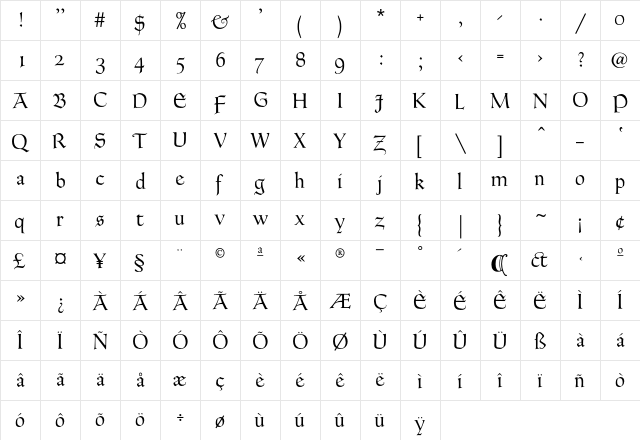
GoudyThirtyHW Regular
Design Context for GoudyThirtyHW Typeface
GoudyThirtyHW takes a measured approach to typography — its balanced proportions and neutral character make it a reliable workhorse for both digital and print work.